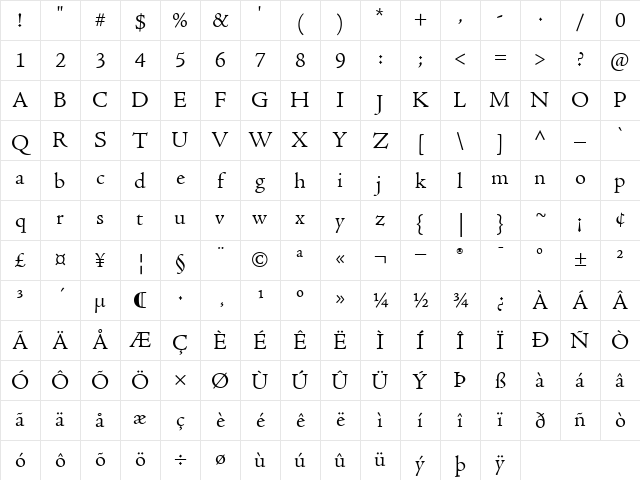
AdobeJenson Roman
Design Context for AdobeJenson
AdobeJenson is a composed and adaptable typeface that performs quietly and consistently across a wide range of design contexts.